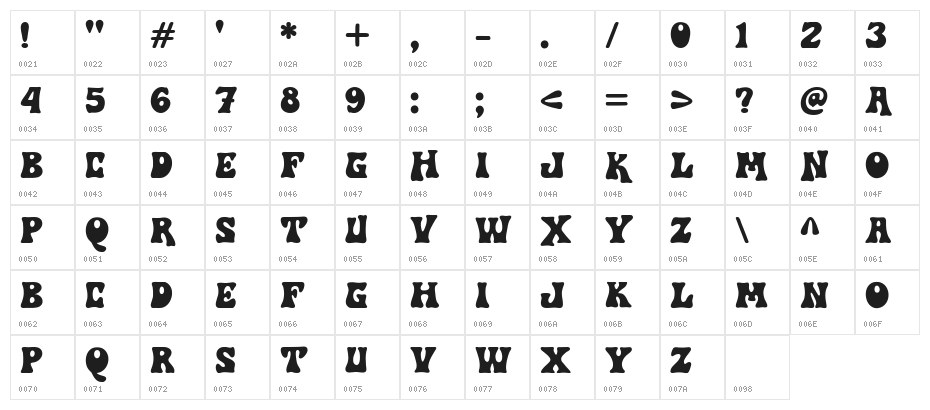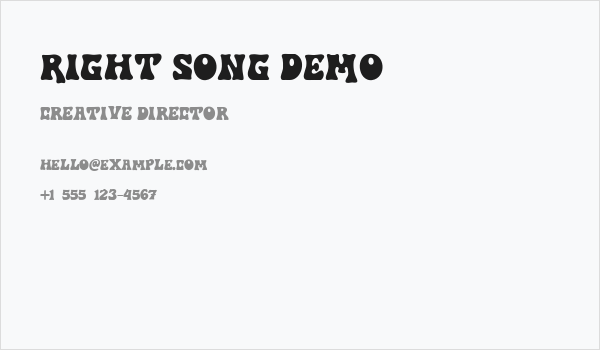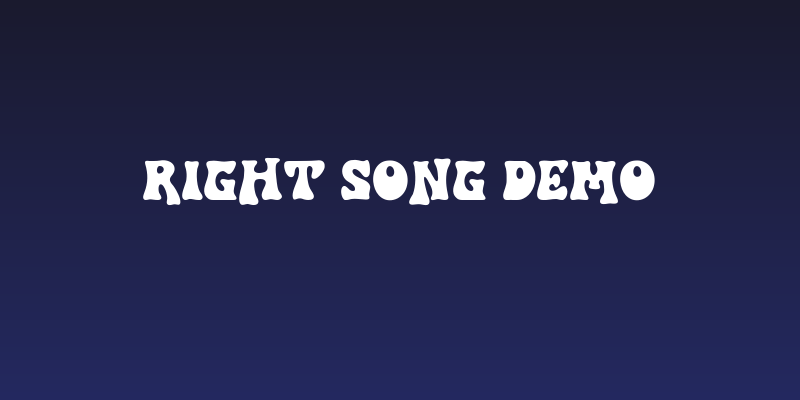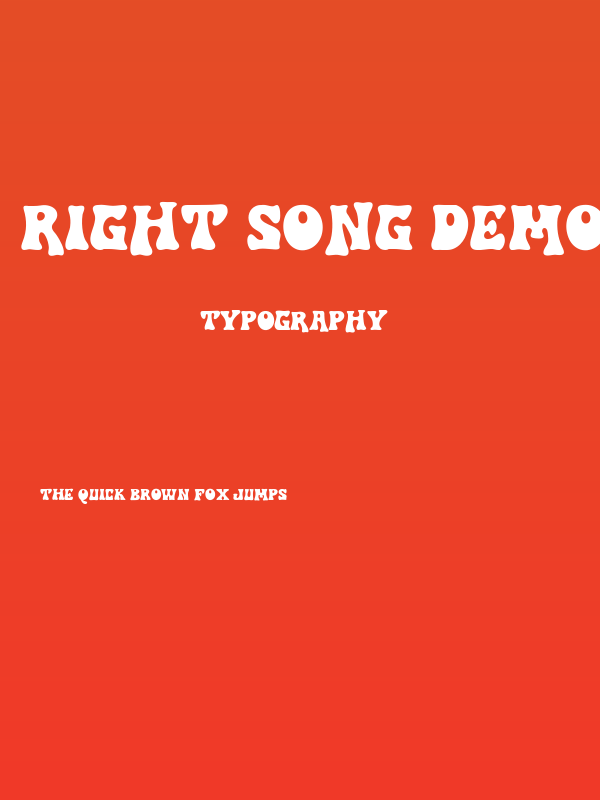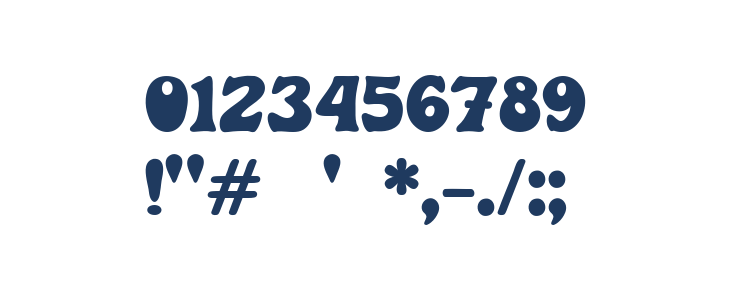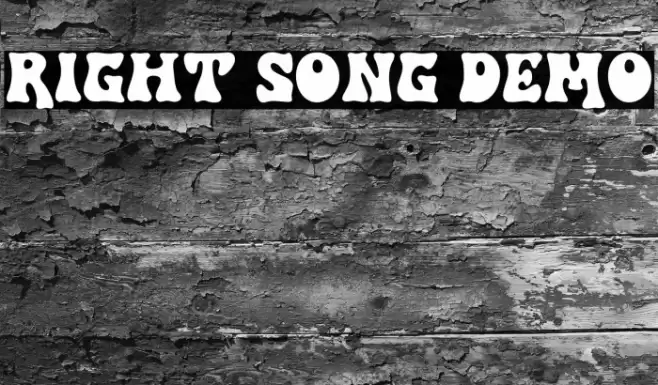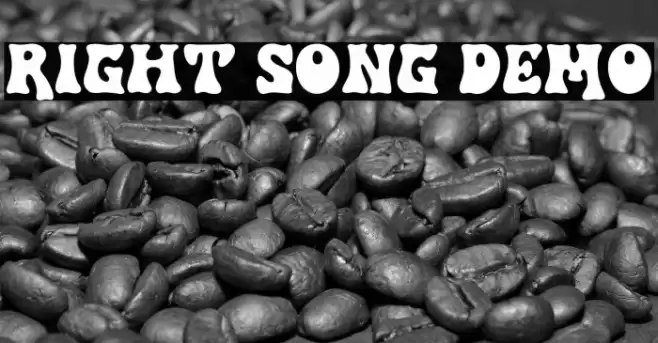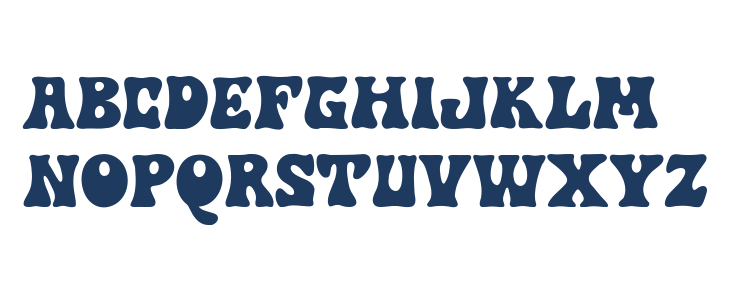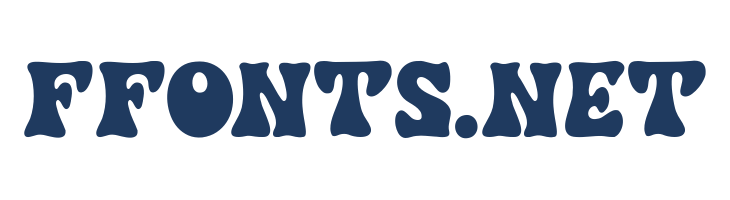
Right Song DEMO Font
Right Song DEMO Description
This font features a bold and playful design, characterized by its thick, rounded strokes and whimsical curves. The letters have a cartoonish, bubbly appearance, making them stand out with a strong visual presence. The numbers and special characters follow the same style, maintaining consistency throughout the set. The font's unique style is both eye-catching and fun, suitable for projects that require a lively and informal touch.
| Overall Style | Playful, Cartoonish |
| Proposed Projects | Ideal for children's books, comic strips, playful branding, and party invitations. |